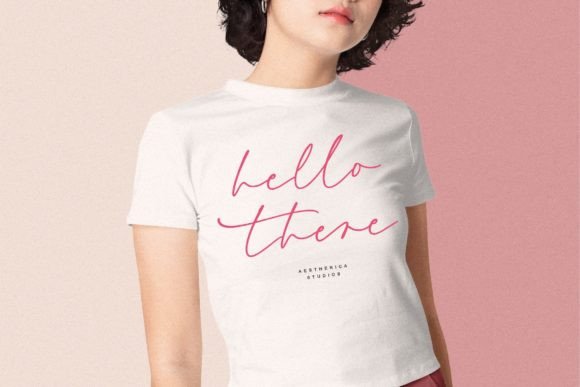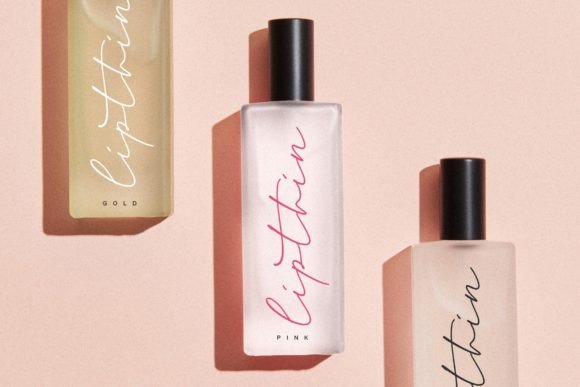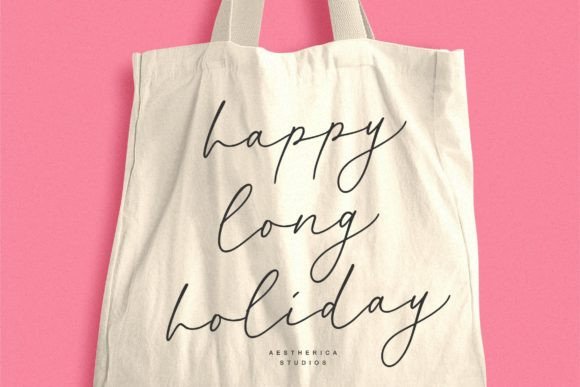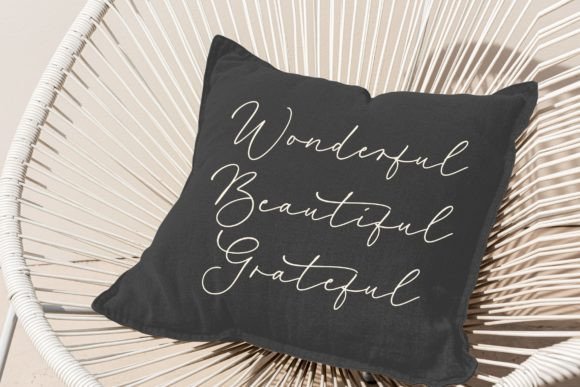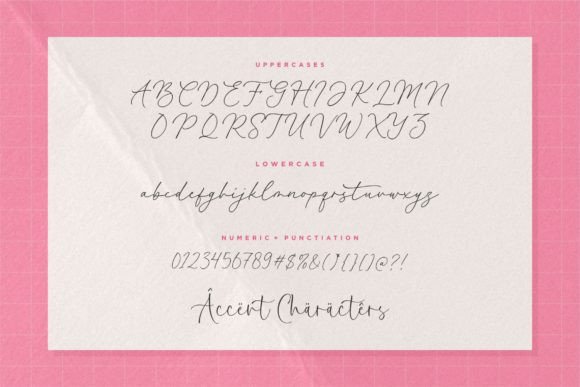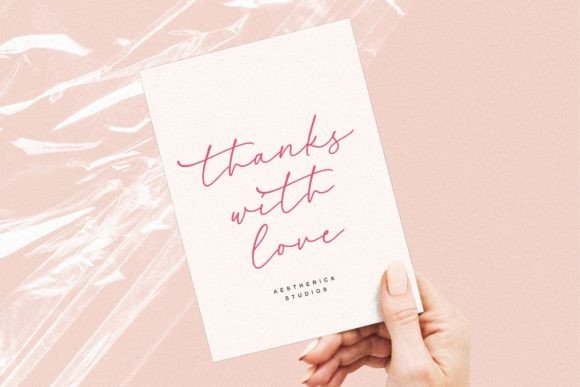
Heartbroke Font
Elevate Your Designs with the Heartbroke Font
The Heartbroke font is a modern handwritten script that adds charm and sophistication to any design. With its elegant strokes and flowing characters, it’s ideal for projects that need a personalized and heartfelt touch. Whether you’re branding a new product or creating a wedding invitation, this font delivers visual warmth and professional quality.
Why Choose Heartbroke Font?
Designed for versatility, the Heartbroke font blends classic calligraphy elements with a modern twist. Here’s what makes it special:
• Clean, smooth letterforms with stylish flow
• Perfect balance between elegance and readability
• Works beautifully in both print and digital formats
• Includes ligatures and alternates for creative flexibility
This handwritten typeface brings an emotional tone to your work while maintaining a polished aesthetic.
Perfect for Multiple Creative Uses
The Heartbroke font adapts well across different design fields. Some popular uses include:
• Product packaging and labels
• Wedding stationery and invitations
• Social media posts and quote graphics
• Logos, magazines, and promotional branding
• Blog headers, thank-you cards, and more
When paired with the right colors and layouts, this font can turn simple text into a visually captivating message.
The Heartbrokefont is an excellent choice for designers who value and emotional impact. Its timeless handwriting style makes it for any project that needs to convey warmth, care, and beauty. From product labels to wedding invites, this font helps your message stand out.